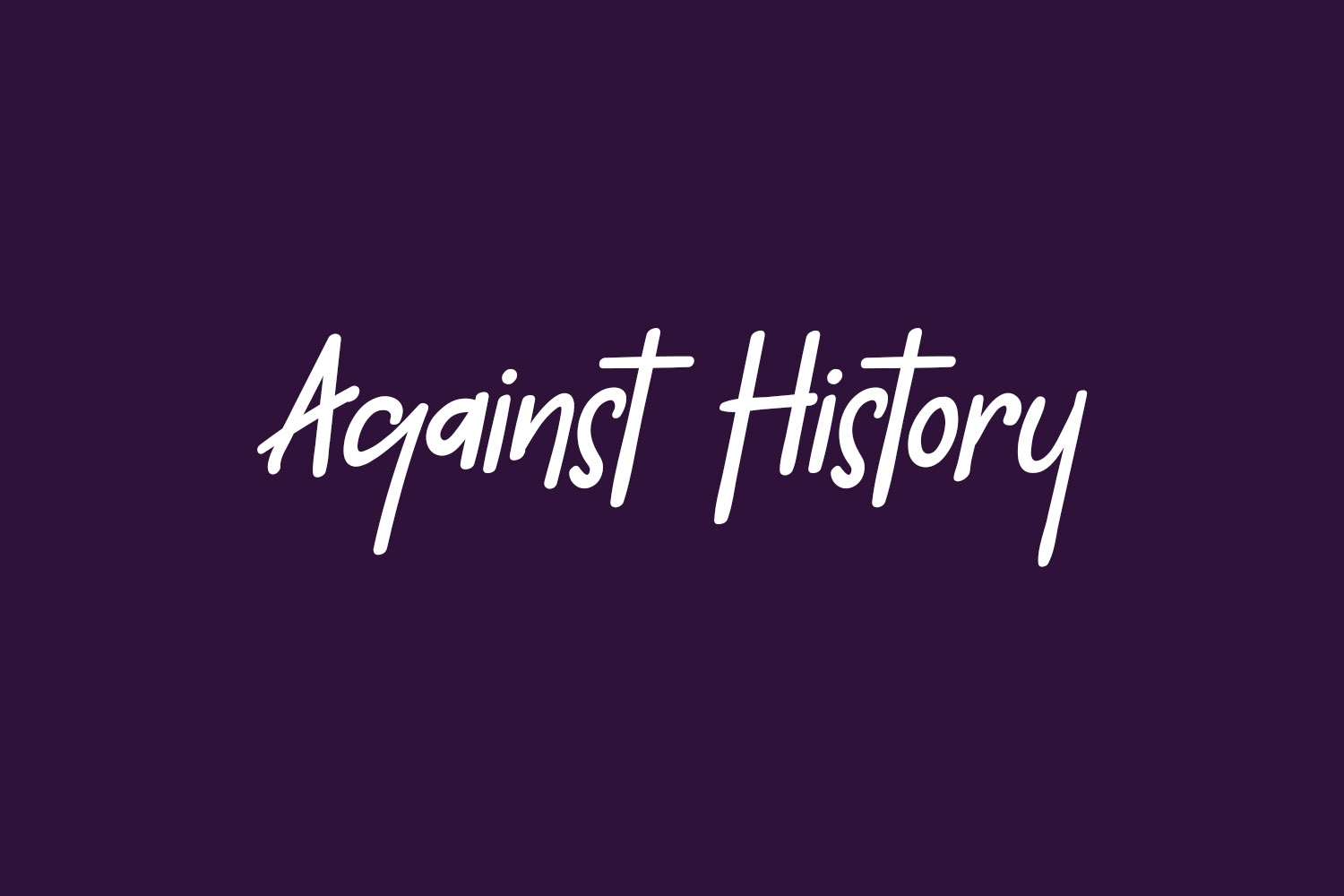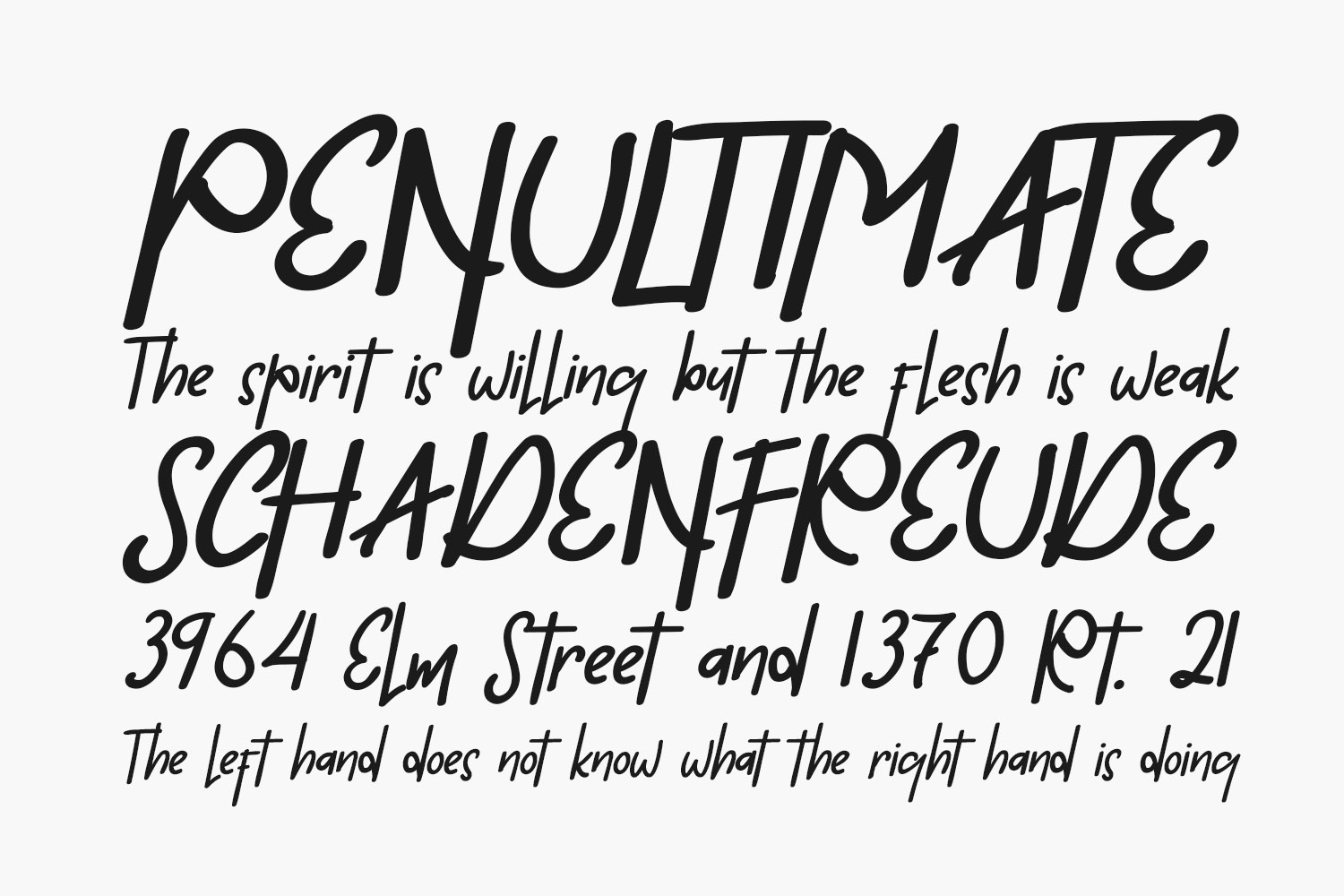
Against History Free Font is a clean, relaxed, and friendly handwritten font. Suitable to a wide variety of designs due to its neat and simple style, this font has the potential to become your favorite go-to font, no matter the occasion. Against History Free Font was designed by Kateeng Ciu and is free for personal use only. Please purchase the full version for commercial use.